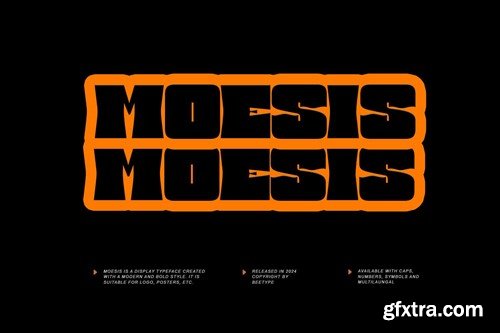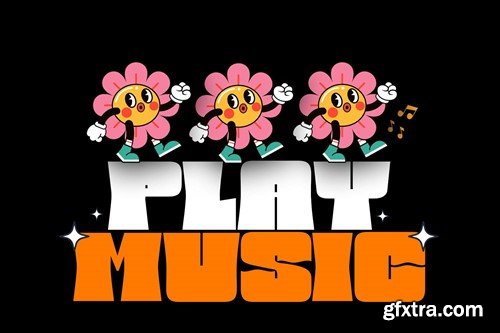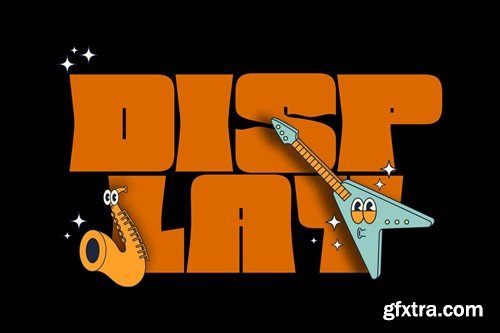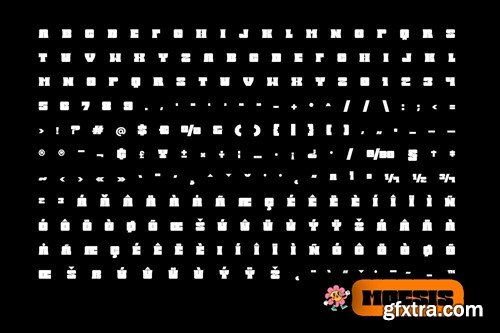
Moesis Display Font FRWCAU2
We are introducing Moesis Display Font, a new generation typeface meticulously crafted to enhance brand identity. Moesis Display Typeface is designed to captivate your audience and elevate your brand presence. Every intricate detail of this typeface is meticulously crafted using mathematical precision. Moesis is versatile, and suitable for a wide range of applications including branding, logos, titles, headlines, posters, digital ads, and more. Our team is dedicated to continuously refining this font as part of our long-term commitment to excellence. Crafted with precision, Moesis features an extensive set of 200+ glyphs, encompassing numerals and extended punctuation for effortless blending into diverse design endeavors. Its refined kerning and superior craftsmanship enhance its visual allure, while its compatibility across TTF, OTF, and WebFonts formats guarantees smooth integration across digital and print mediums.